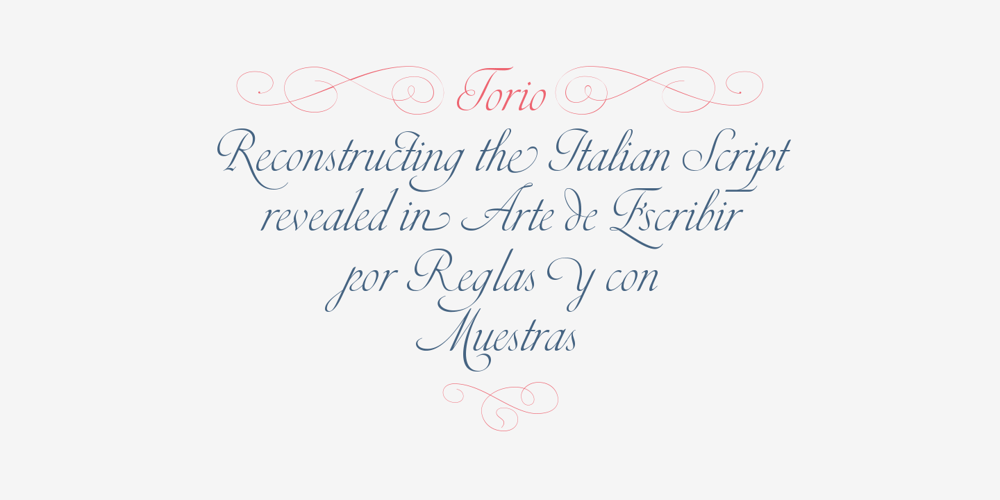
Torio
Torio font
Torio Font Family was designed by Dino dos Santos, Pedro Leal and published by Monotype. Torio contains 2 styles and family package options. Our main purpose while developing this typeface was to reconstruct, in the most precise way, the first ten plates of the “Arte de Escribir”, in a chapter named “Enseñanza de la letra italiana, y sus principales variaciones, autores, sistemas, &c.”, dedicated to the analysis of the Italian Script. We decided by this plates because those are the few that don’t refer, directly or indirectly, to any author in particular. We strongly believe that these plates reflect the freedom of his very own calligraphy and are closely related to the calligraphic style that was a success among the spanish calligraphers: the Spanish Bastarda.